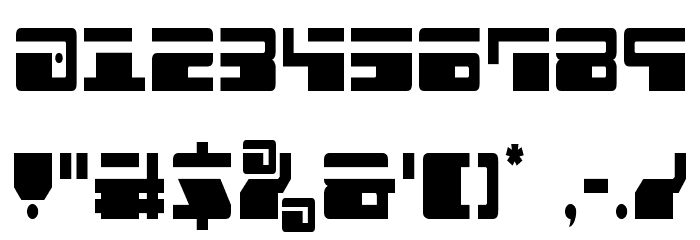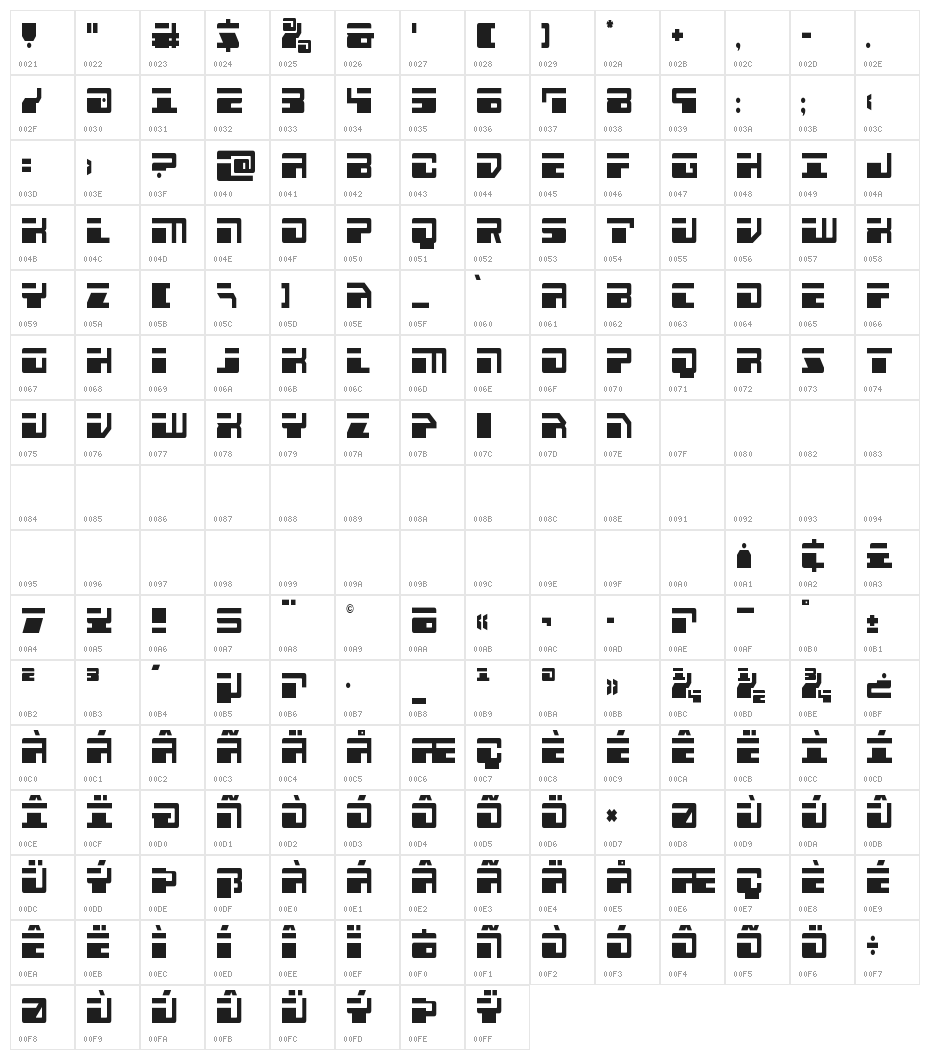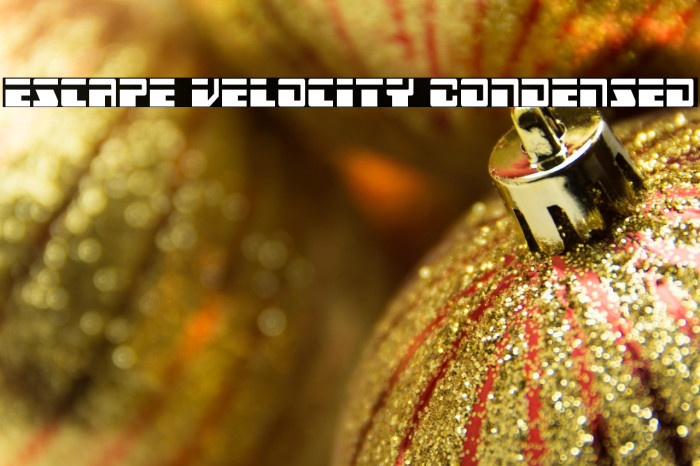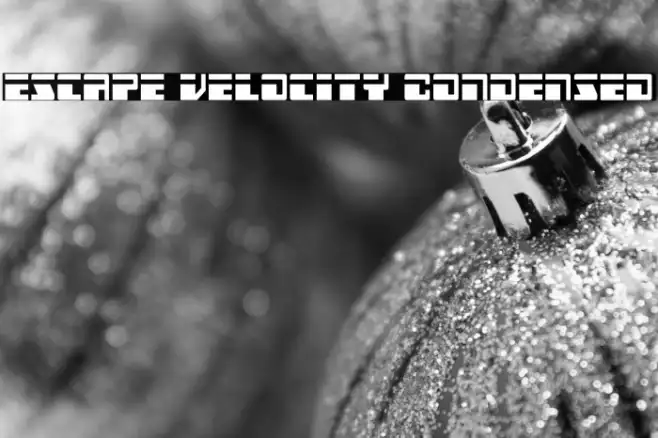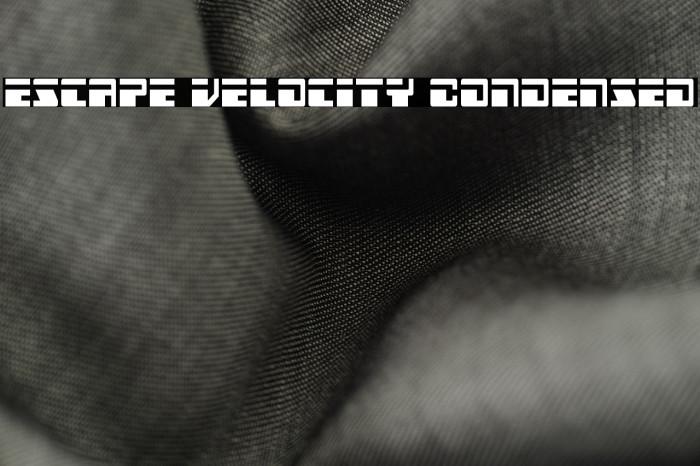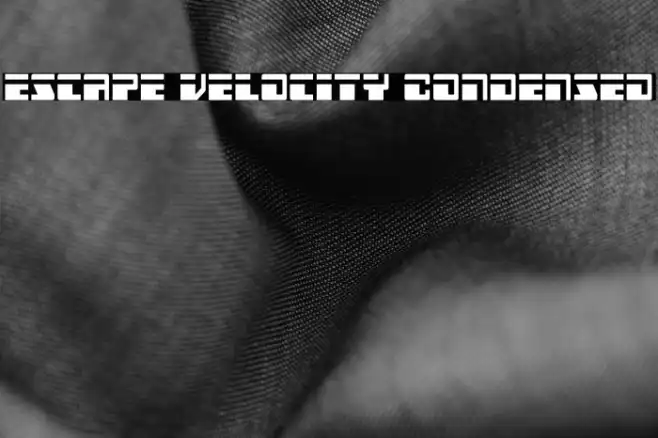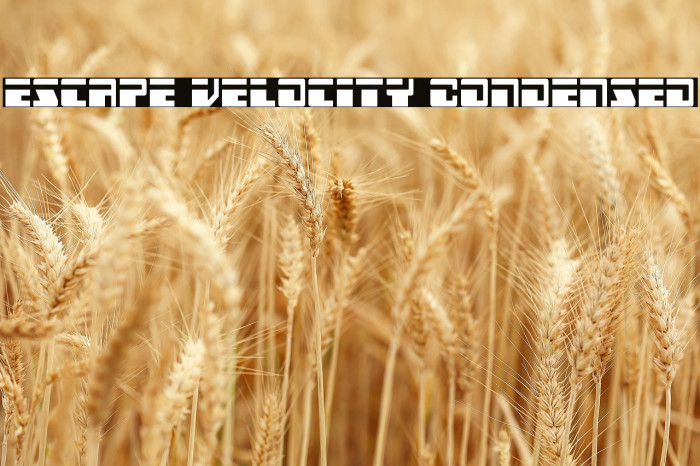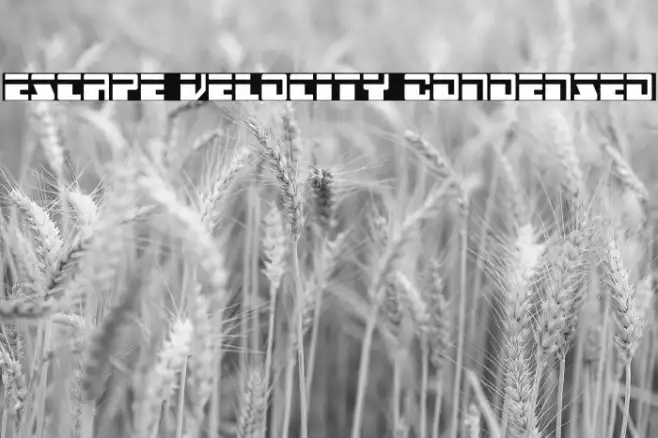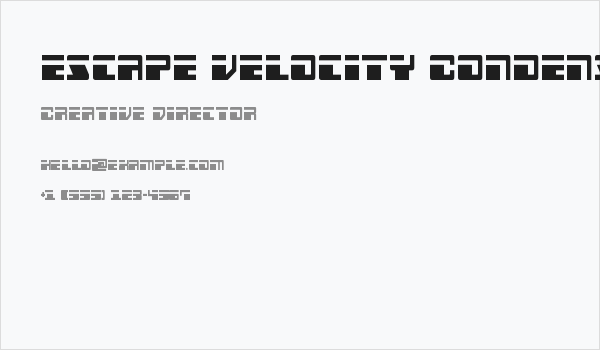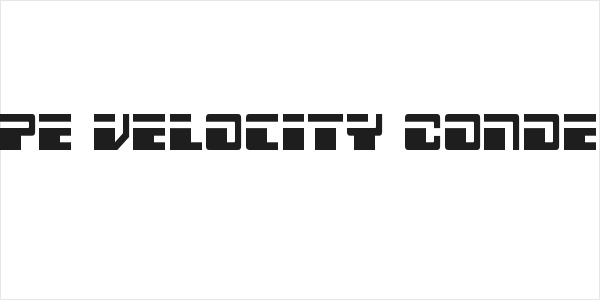
Escape Velocity Condensed Font
Escape Velocity Condensed Description
This font features a bold, futuristic design with a distinctly geometric and angular style. The characters are constructed with sharp edges and a blocky appearance, creating a sense of modernity and technological advancement. The condensed width of the letters enhances its compact and efficient look, making it ideal for space-saving applications. The uniform stroke width across all characters contributes to a cohesive and consistent visual impact. This font's unique style is both eye-catching and assertive, making it suitable for projects that require a strong and dynamic presence.
| Proposed Projects | Ideal for sci-fi themed projects, technology branding, video game titles, and futuristic posters. |